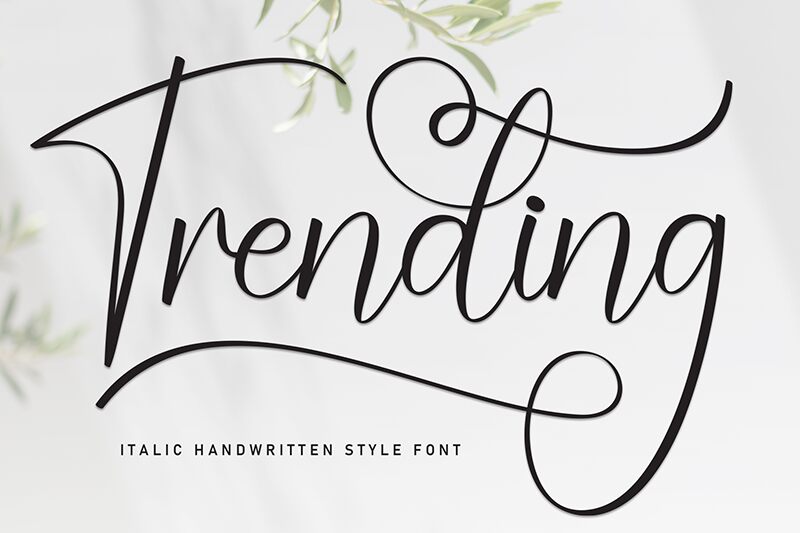
Trending font is a modern handwritten font designed by Scratchones. It boasts a fluid and expressive design with a dynamic and artistic flow. Bringing contemporary sophistication, it is stylish and decorative, resembling natural handwriting. It’s a free font, allowing for effortless integration into a wide variety of projects, making personal ventures a breeze.
From social media posts, videos, or channel cover designs to logo and branding endeavors, this font is an excellent way to add a refined handcrafted dimension to your project. Use with wedding invitations, merchandise, digital media, art, and more for a finished product that feels instantly more polished.
Special creative products designed for you will provide an extraordinary experience. The latest style letters are perfect for wall displays, wedding invitations, social media logos, advertisements, product packaging, product designs, labels, photography, watermarks, invitations, stationery, and any project that requires elegant handwriting.